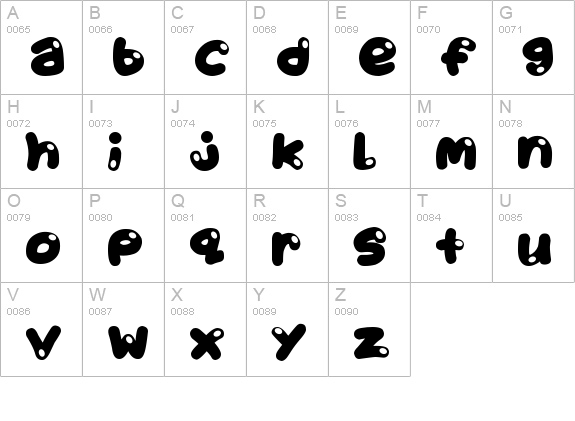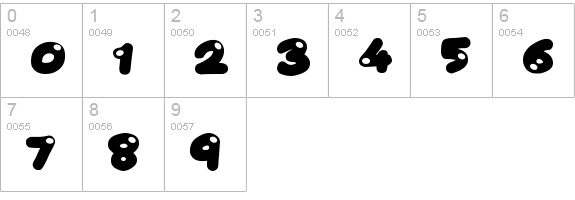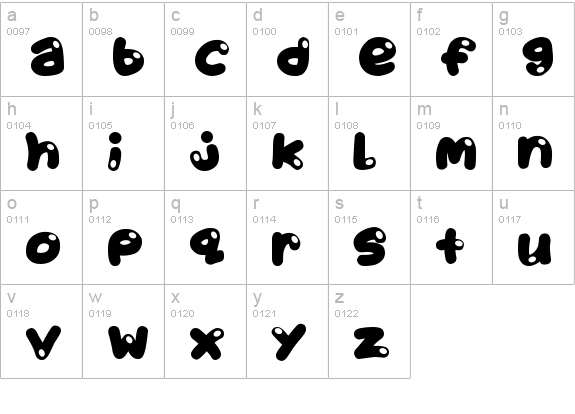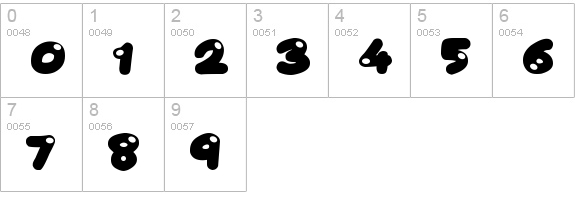
Juicy Fruity Font Details
Introducing Juicy Fruity font, a vibrant and playful typeface that will add a burst of color to your designs. This font is a delightful choice for projects that require a fun and lighthearted touch, perfect for invitations, posters, branding, and more.
With its juicy and fruity-inspired letterforms, this font exudes a fresh and lively energy that is sure to catch the eye. Each character is uniquely crafted with a hand-drawn feel, giving your text a personalized and organic look.